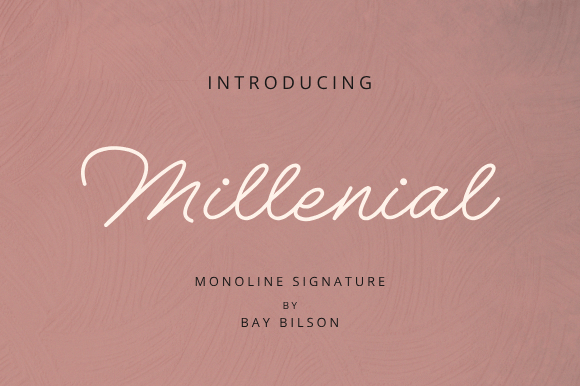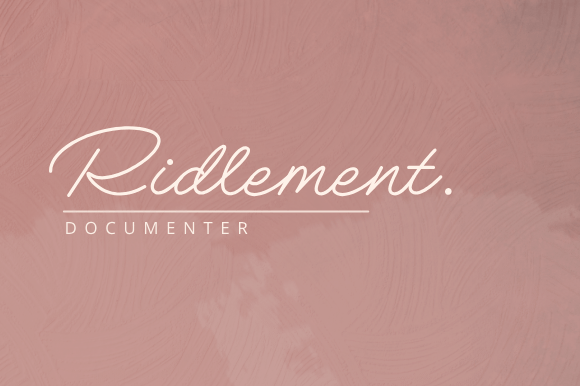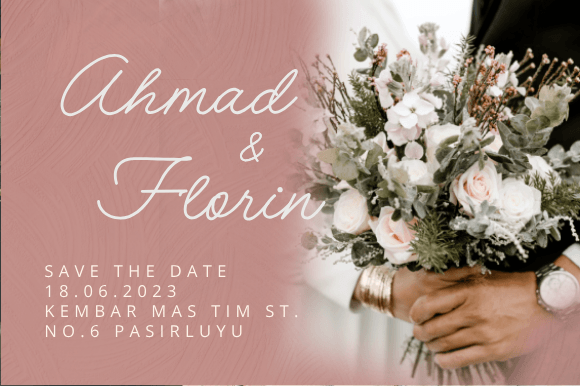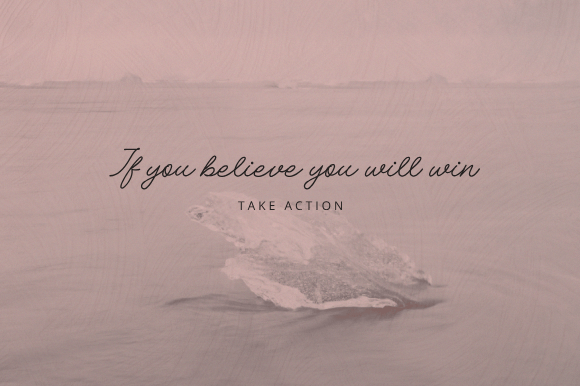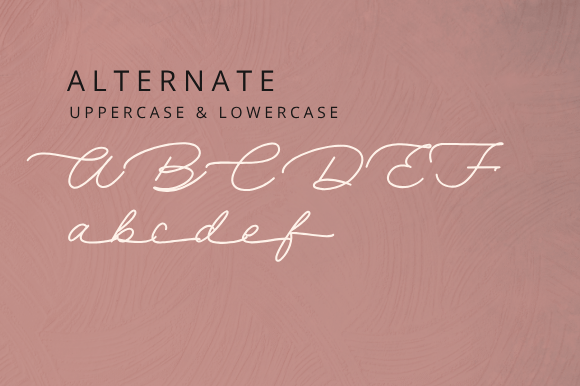
Millenial Font
The Millennial font is a visual representation of the spirit of today’s generation. Created with a modern and stylish design, this font exudes contemporary attractiveness that follows the latest trends. With its unique and flexible character, Millennial is suitable for a variety of design needs, from social media to company branding. Each letter describes the intelligence, freedom, and spirit of innovation that are characteristic of the millennial generation. With its elegance and freshness of design, the Millennial font will be an ideal choice to make your messages more interesting and up-to-date.